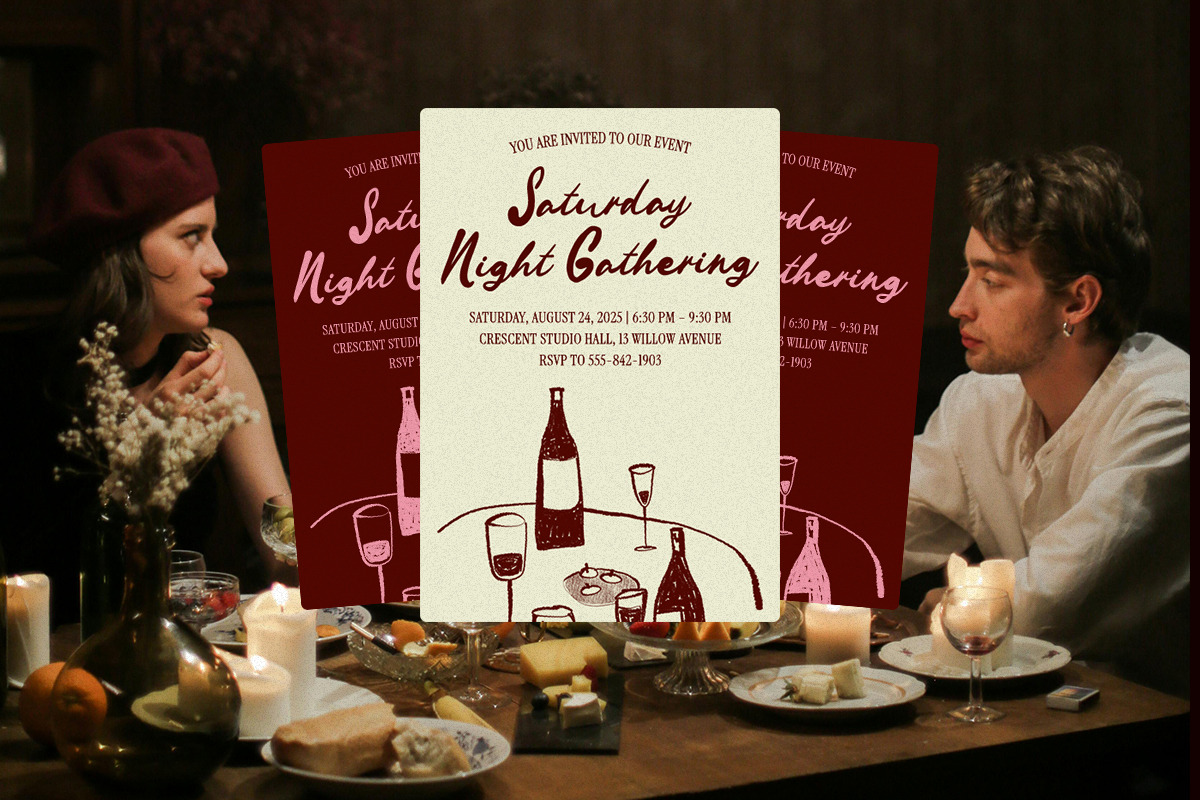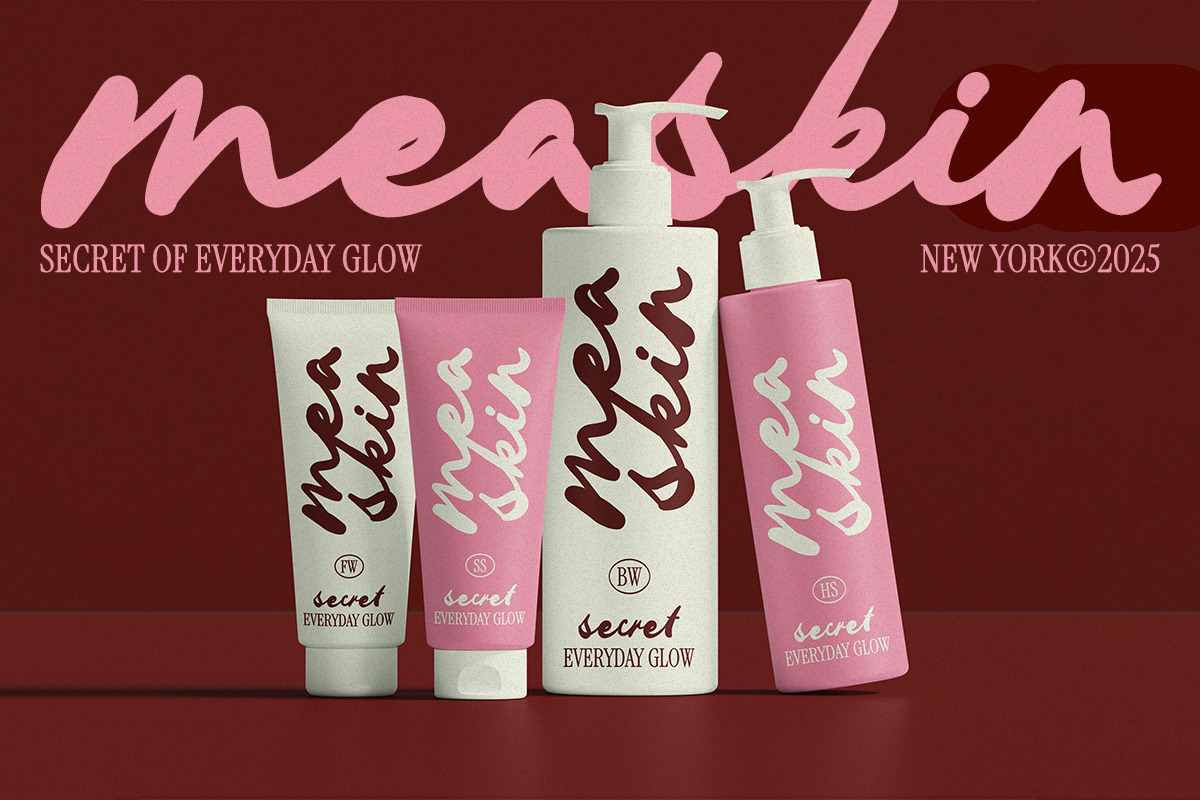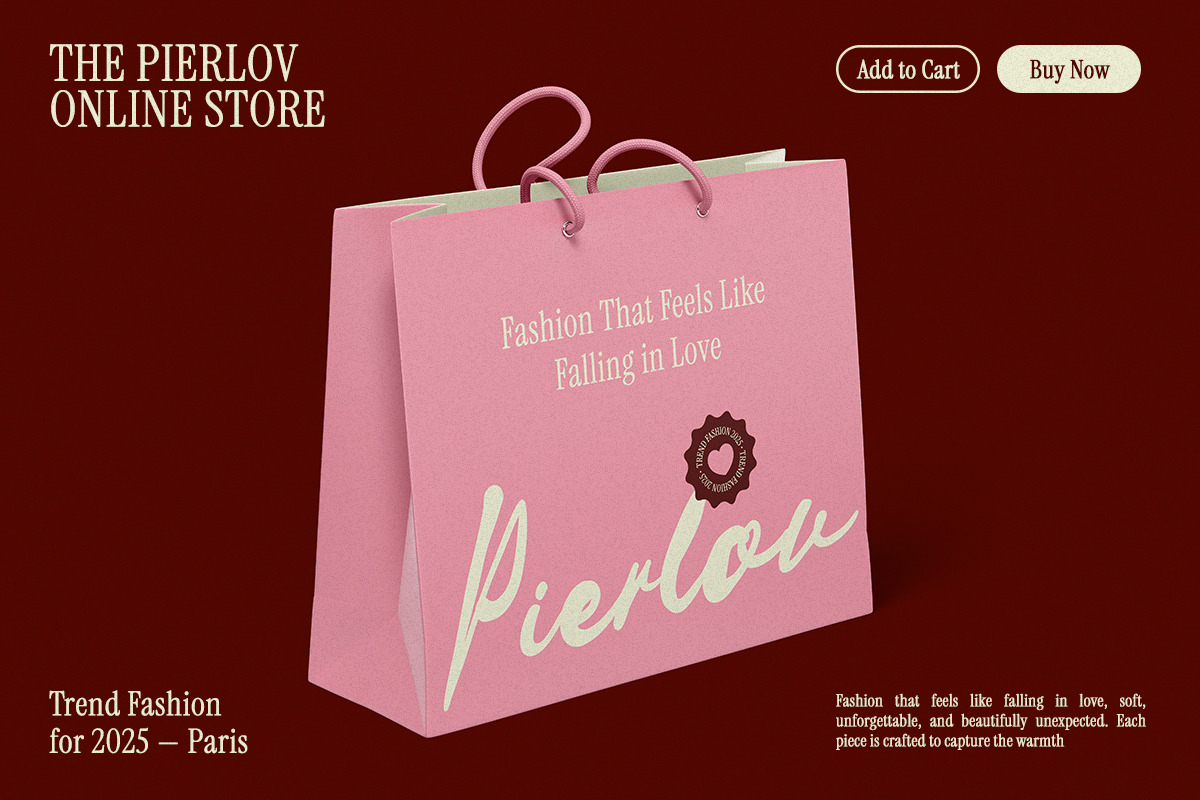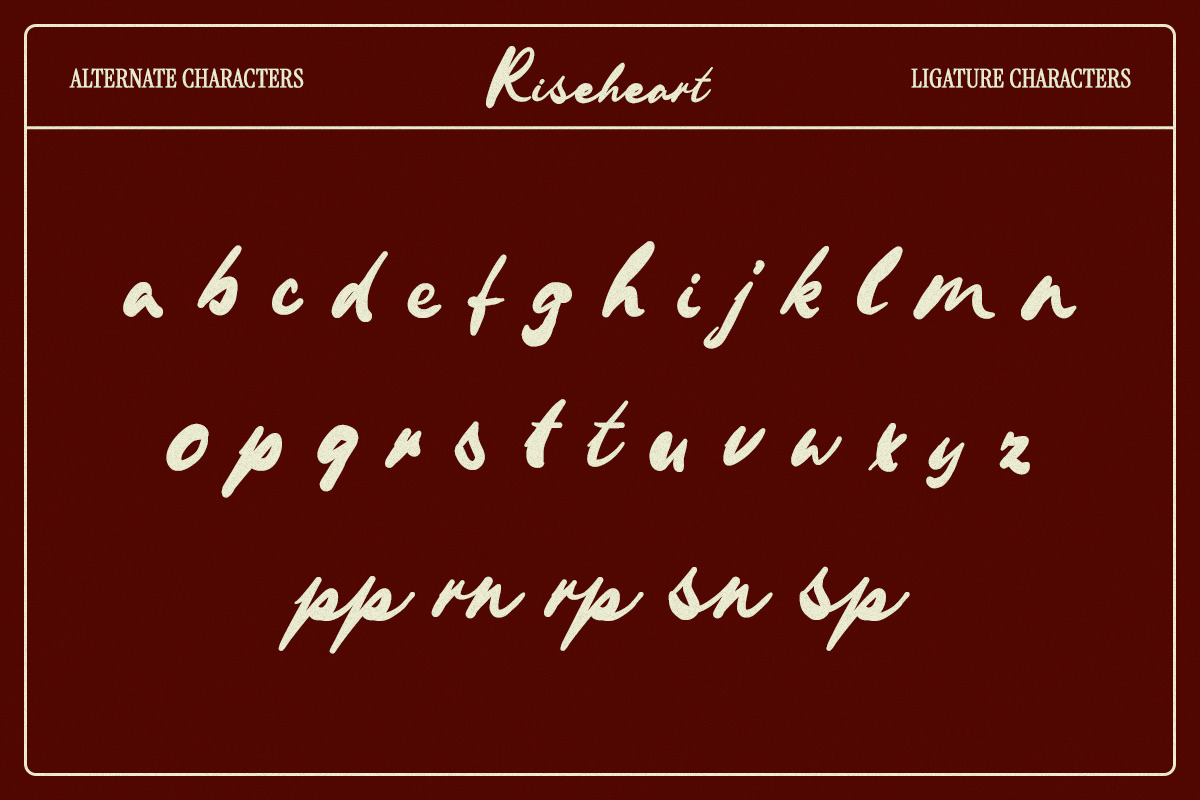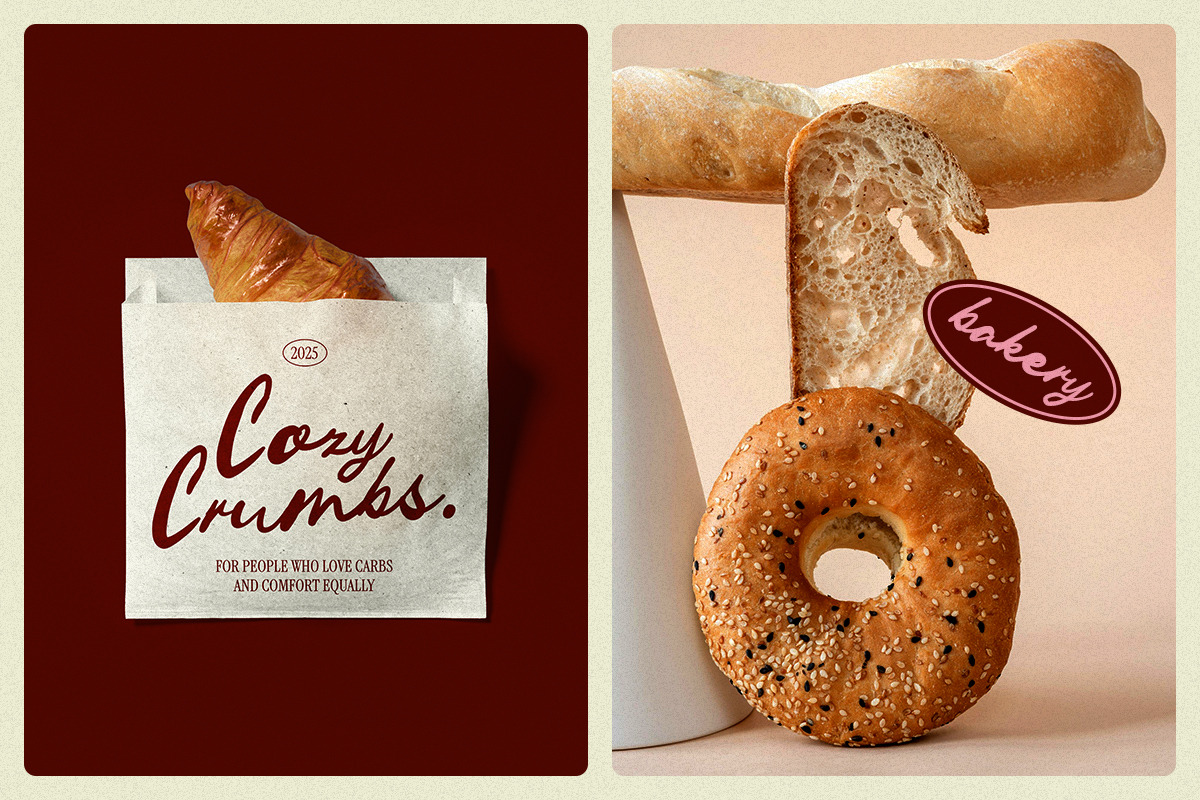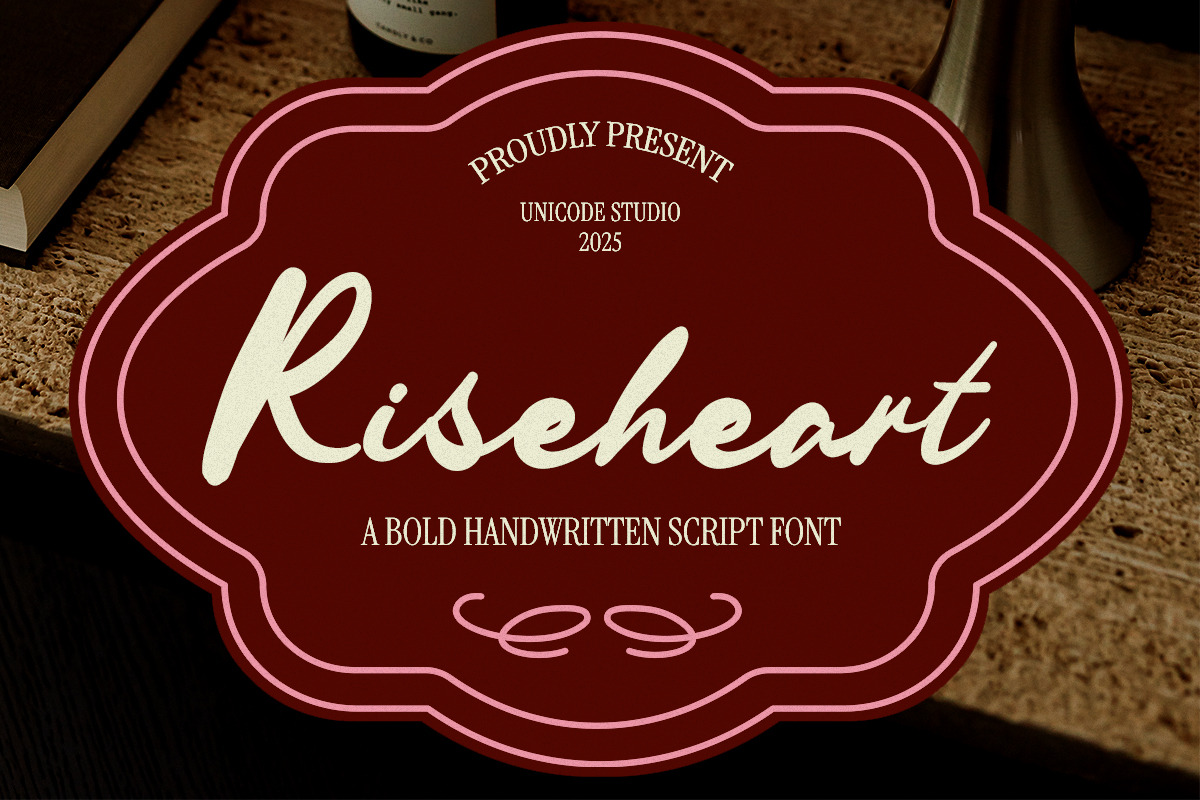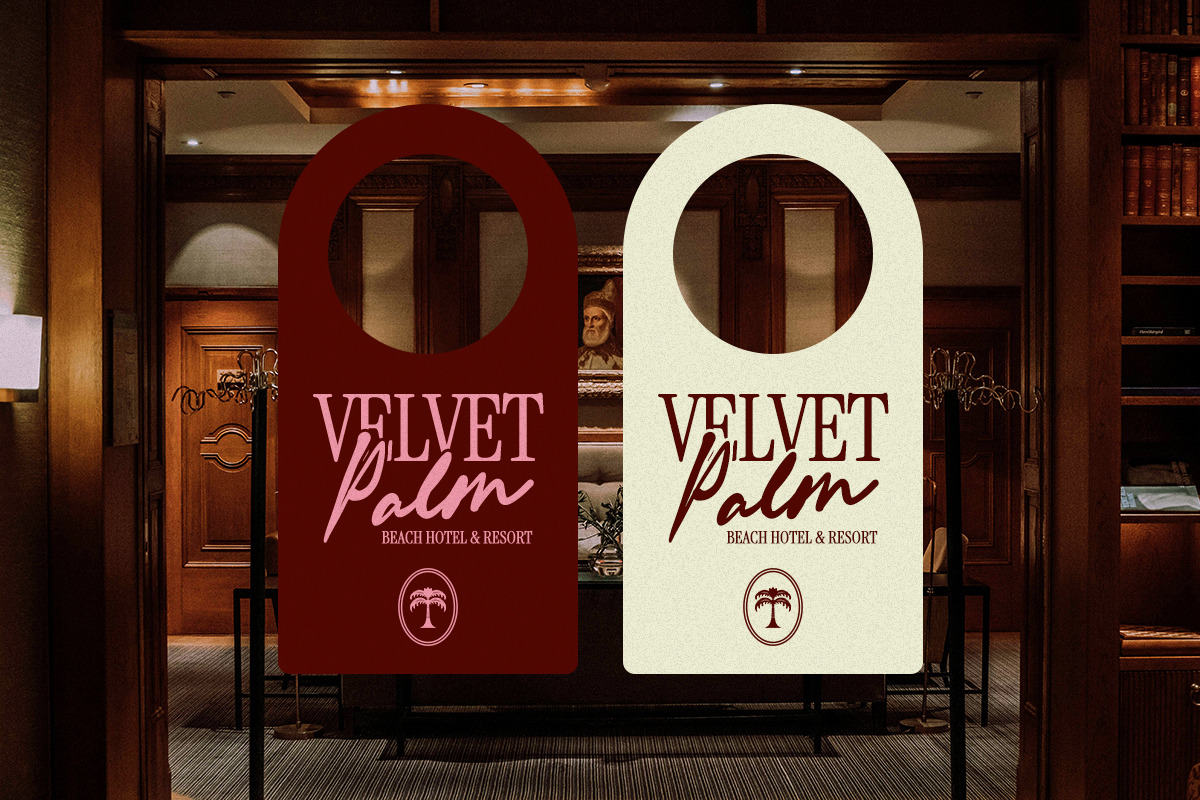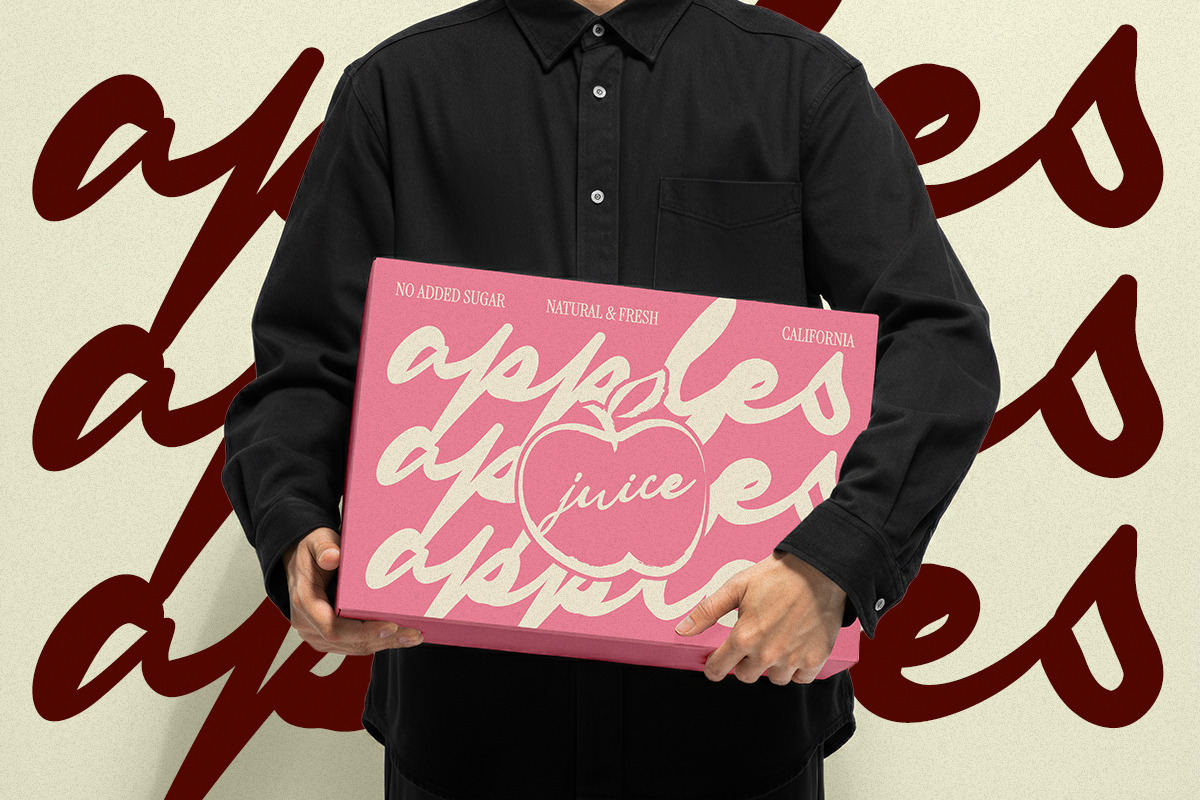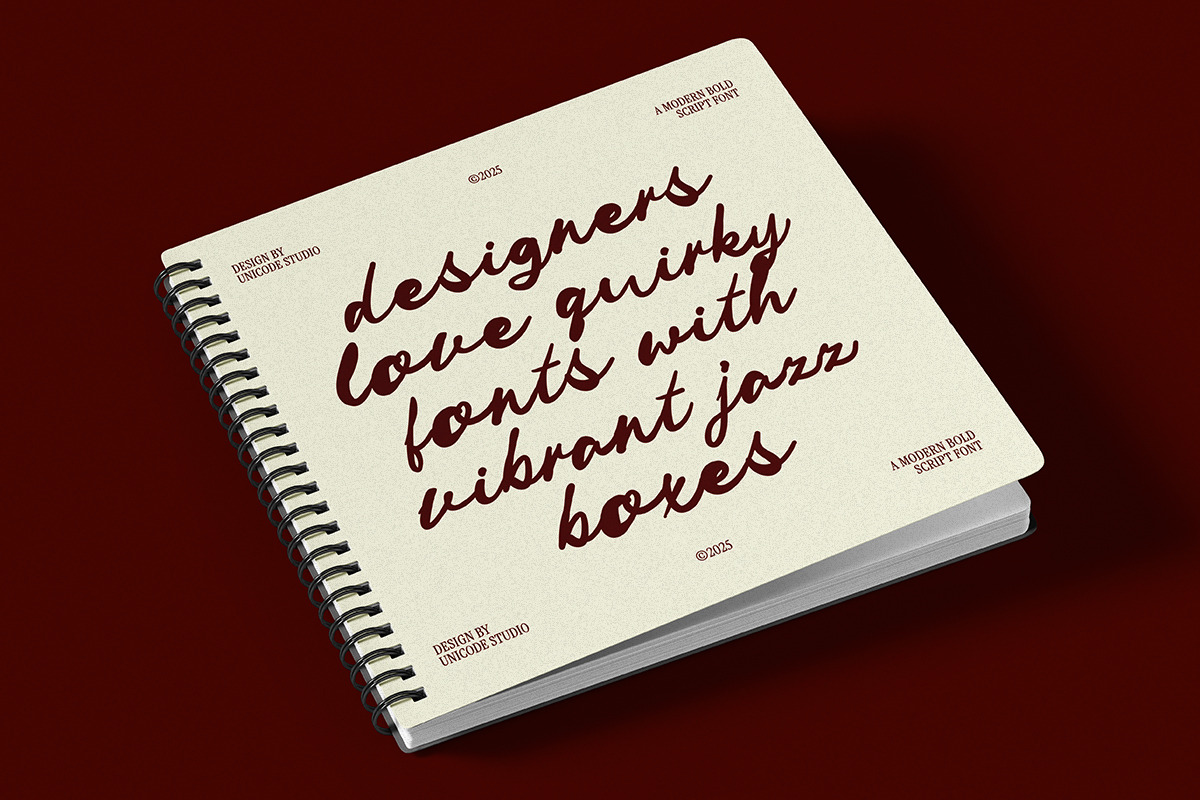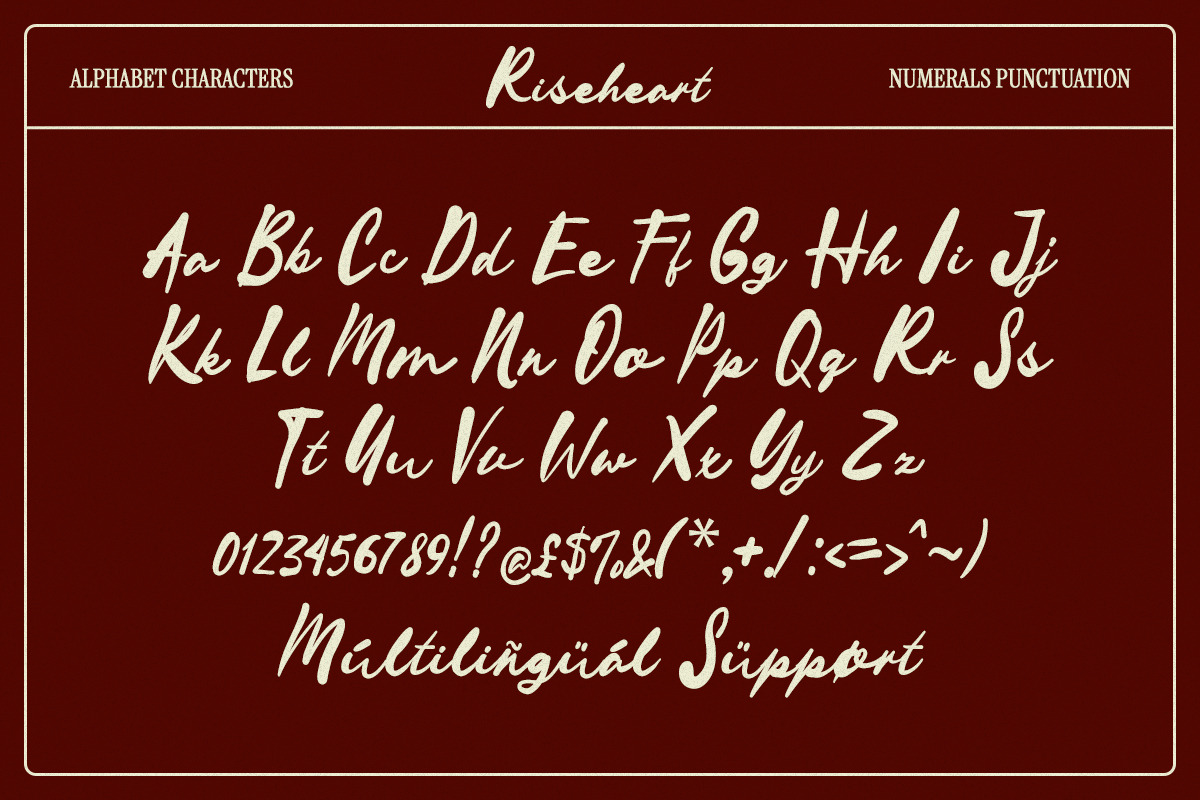
Riseheart – Handwritten Script Font
Riseheart – Bold Handwritten Script Font
Riseheart is a bold handwritten script font with a warm, expressive, and confident character. Designed with smooth strokes and natural curves, this font delivers a handcrafted feel while remaining highly legible and versatile.
Perfect for branding, logos, packaging, invitations, posters, social media graphics, quotes, and vintage-inspired designs. Riseheart adds personality and charm to both modern and classic creative projects.
Whether you're working on bold branding or heartfelt designs, Riseheart brings a strong handwritten presence that stands out beautifully.
Riseheart Bold handwritten script for standout branding